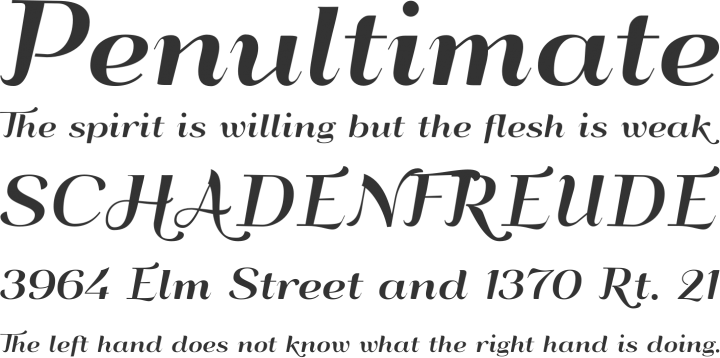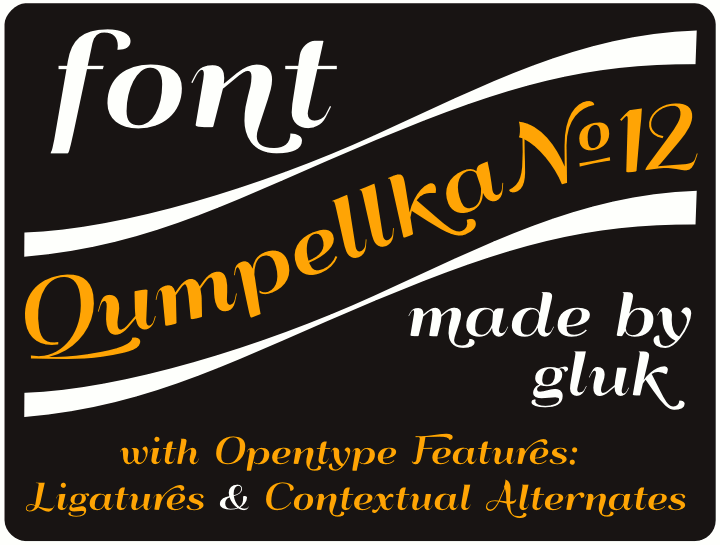
QumpellkaNo12 is a beautiful calligraphic script font designed by Gluk fonts with 597 Glyphs. The font would look attractive and appealing in every size whether used as headings, sub headings or in content. Make your logo designs, brochures, flyers, signage or other graphic design projects fantastic and good looking with the appropriate use of this cute cursive font. QumpellkaNo12 font is Free for personal use.